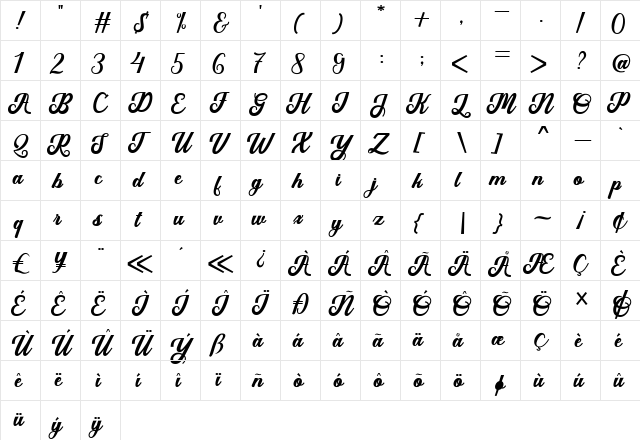
Austine Script Regular
Design Context for Austine Script Typeface
Austine Script brings a calligraphic fluidity to the page — its connecting strokes and expressive curves give it an unmistakably human quality.
Font Pairing: Combine Austine Script with a simple geometric sans for maximum contrast — the tension between flowing curves and clean structure is a classic typographic pairing.
Pro Tip: Use Austine Script for short runs of text — names, titles, or taglines. Extended body copy in script faces tires the eye quickly.